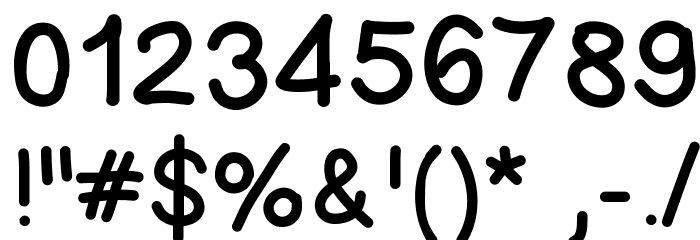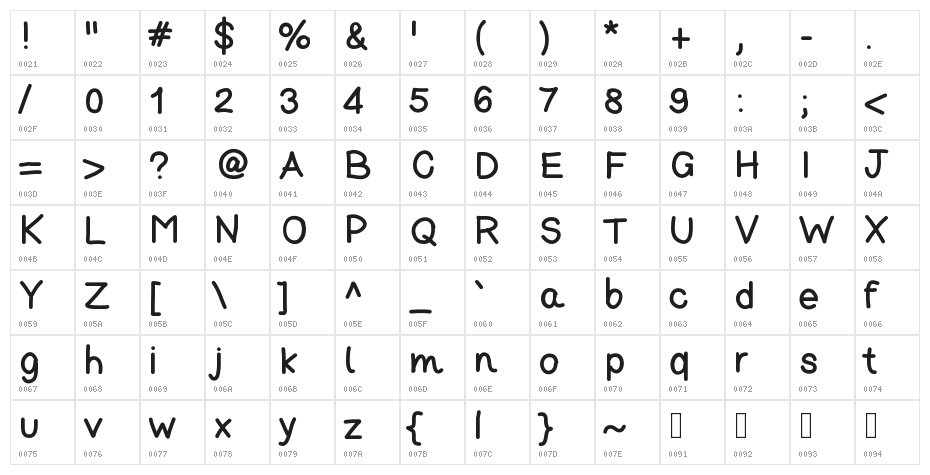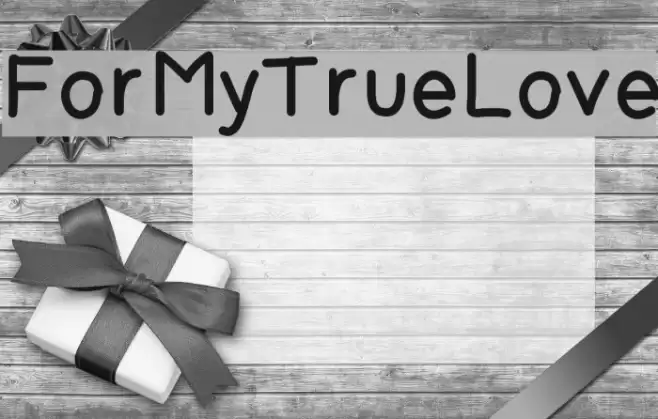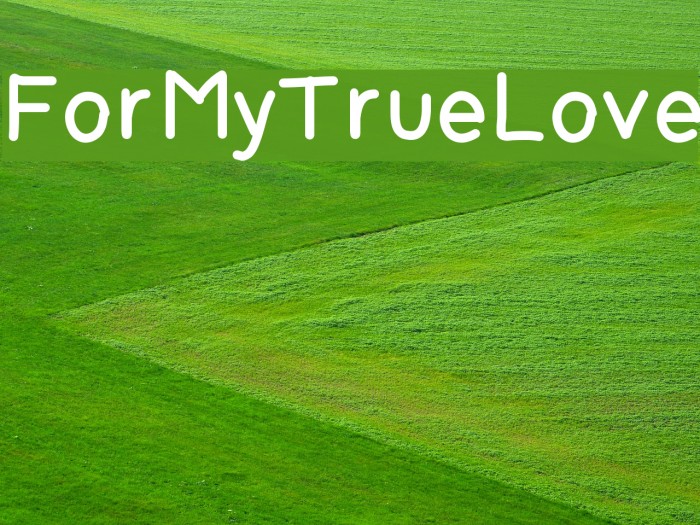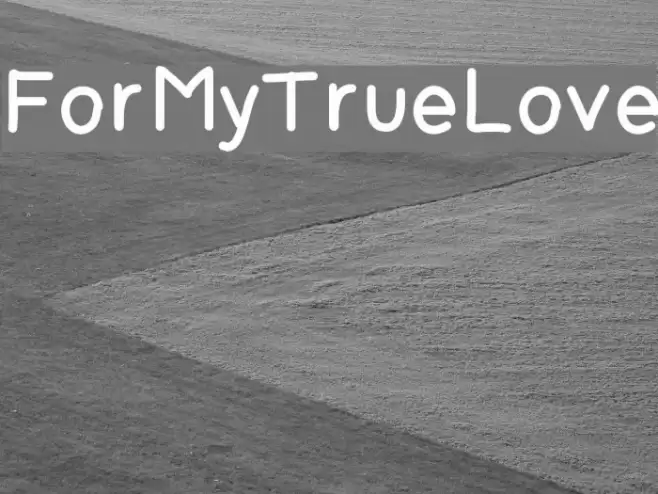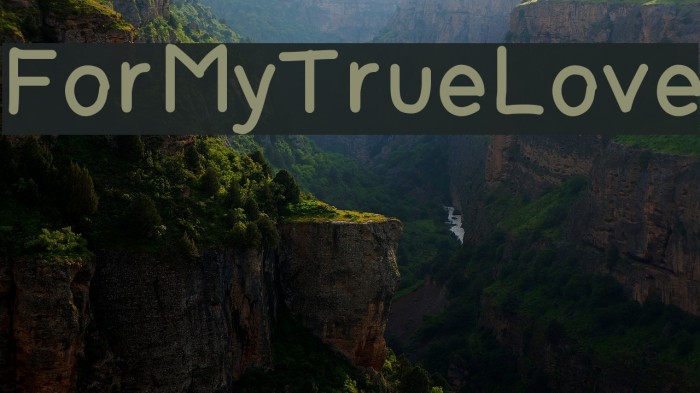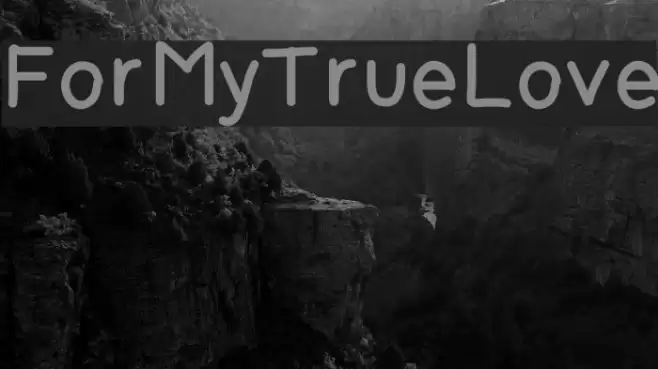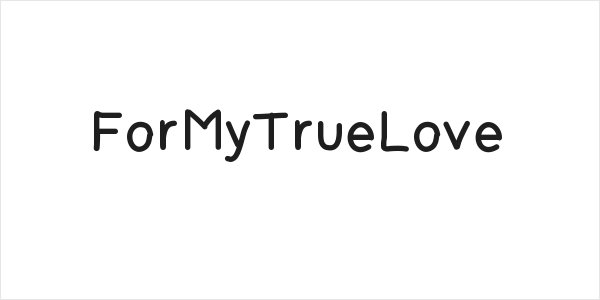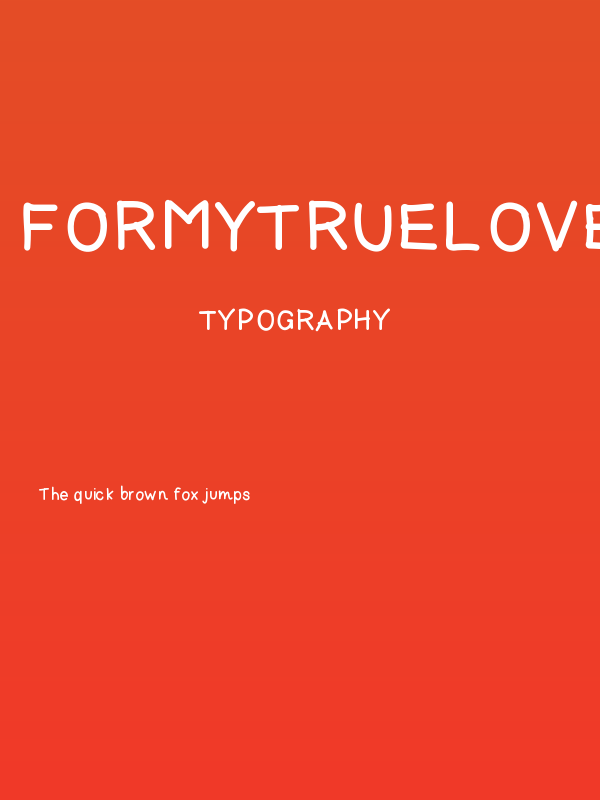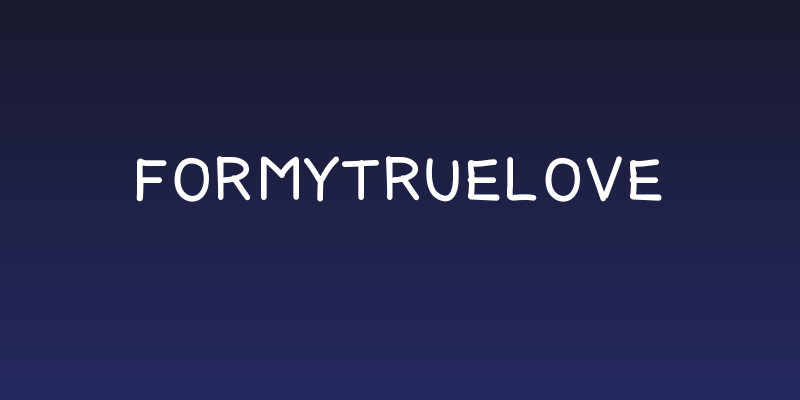
ForMyTrueLove Font
ForMyTrueLove Description
This playful and whimsical font features rounded, smooth edges and a casual, handwritten style. The characters are slightly irregular, giving it a friendly and approachable feel. The uppercase and lowercase letters are well-balanced, with a consistent stroke width that maintains readability. The numbers and special characters follow the same style, ensuring a cohesive look across all text elements. Its informal nature makes it ideal for projects that require a personal touch or a sense of fun. The font's simplicity and charm make it versatile for various creative applications.
| Proposed Projects | Greeting cards, children's books, playful branding, social media graphics, and personal invitations. |